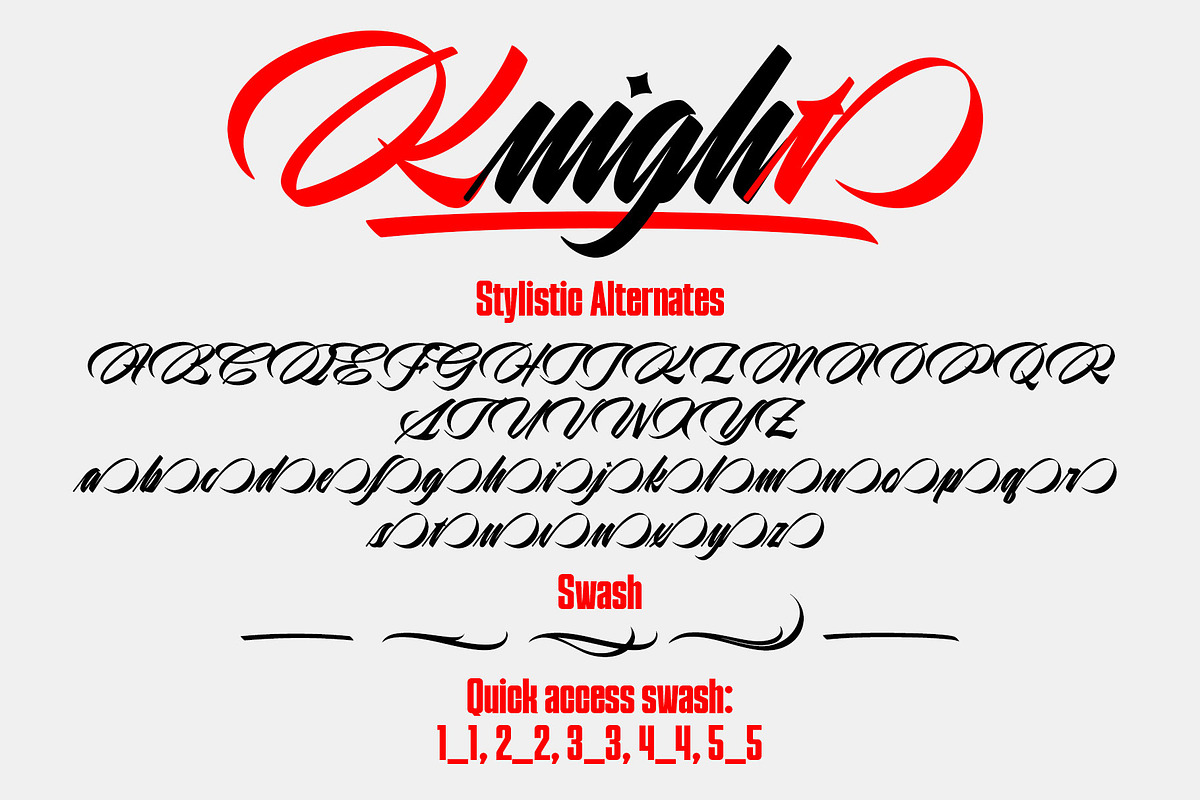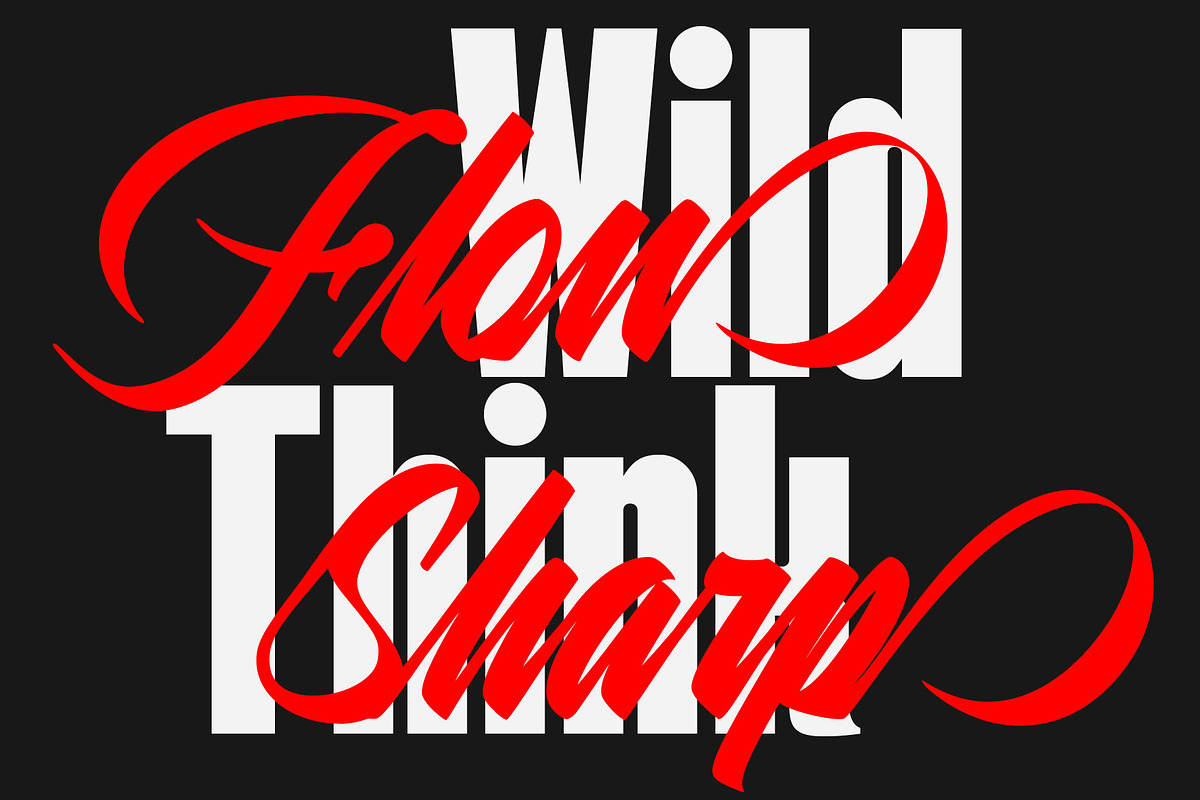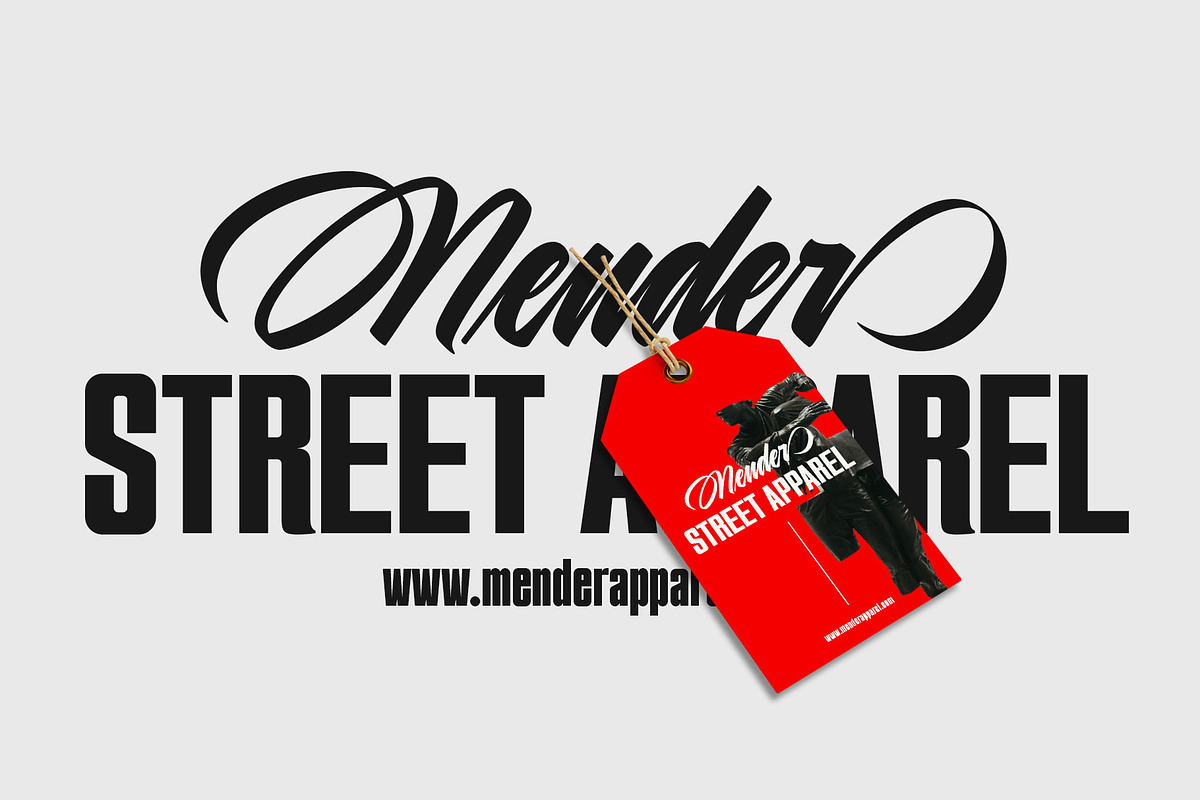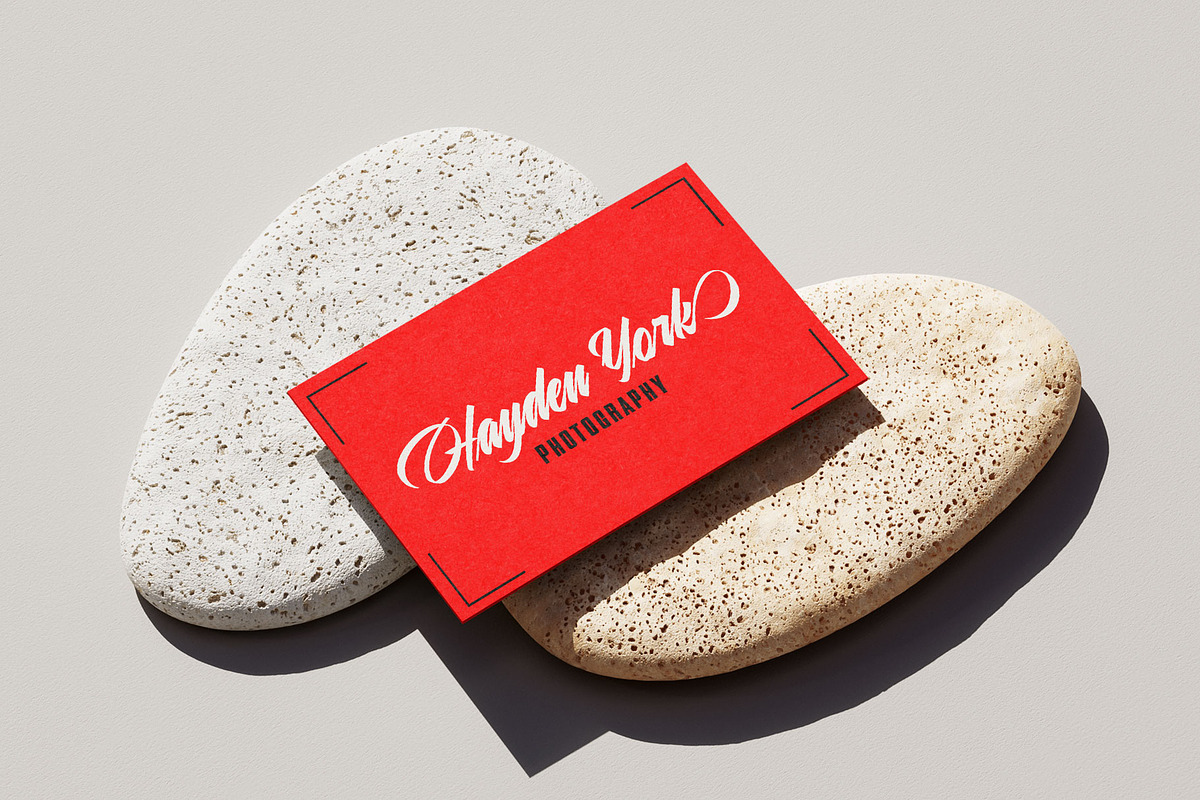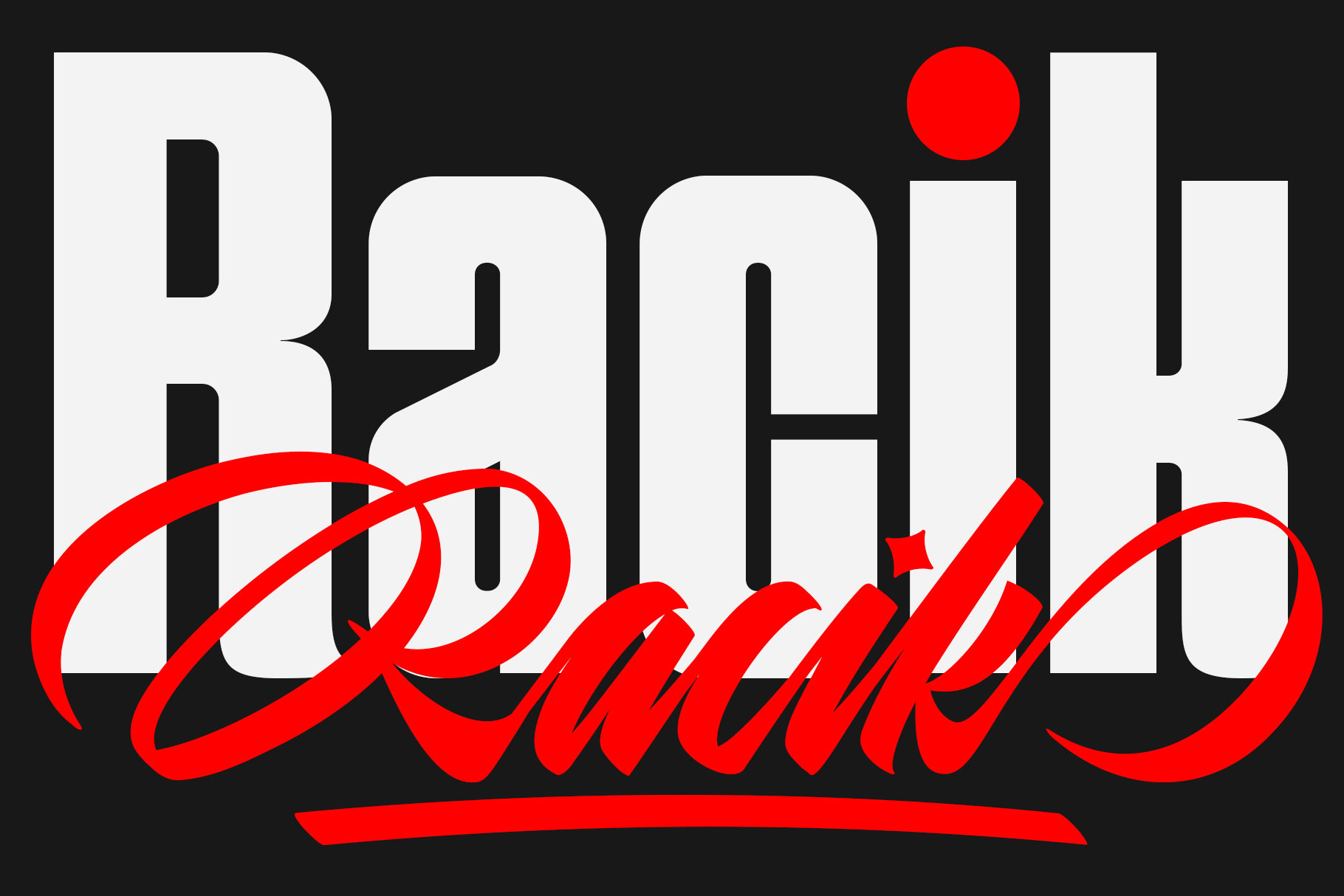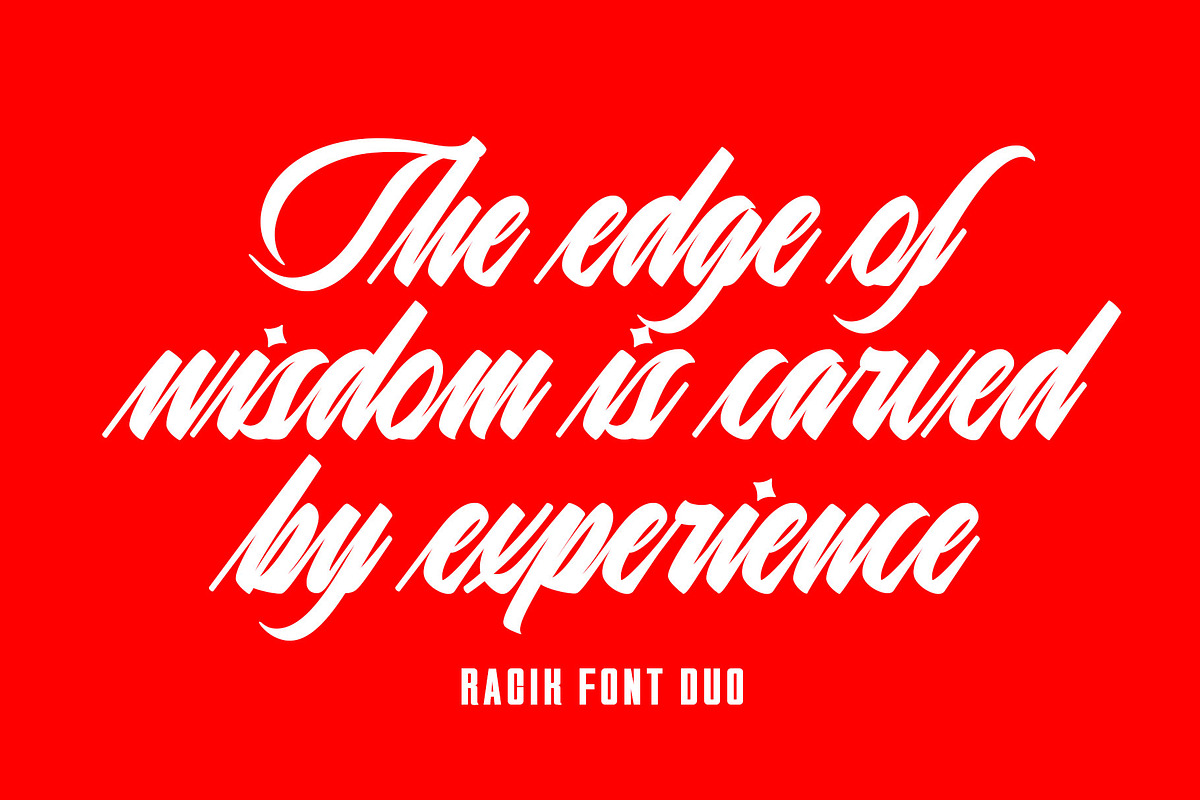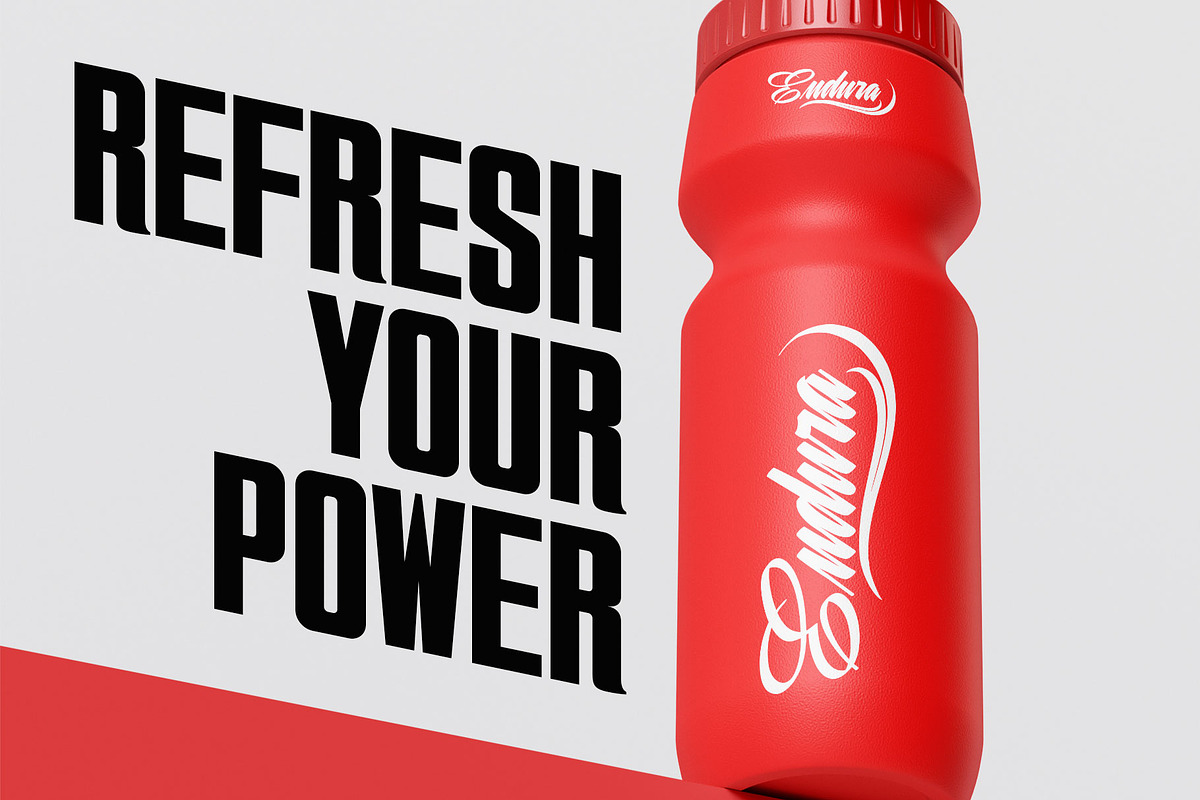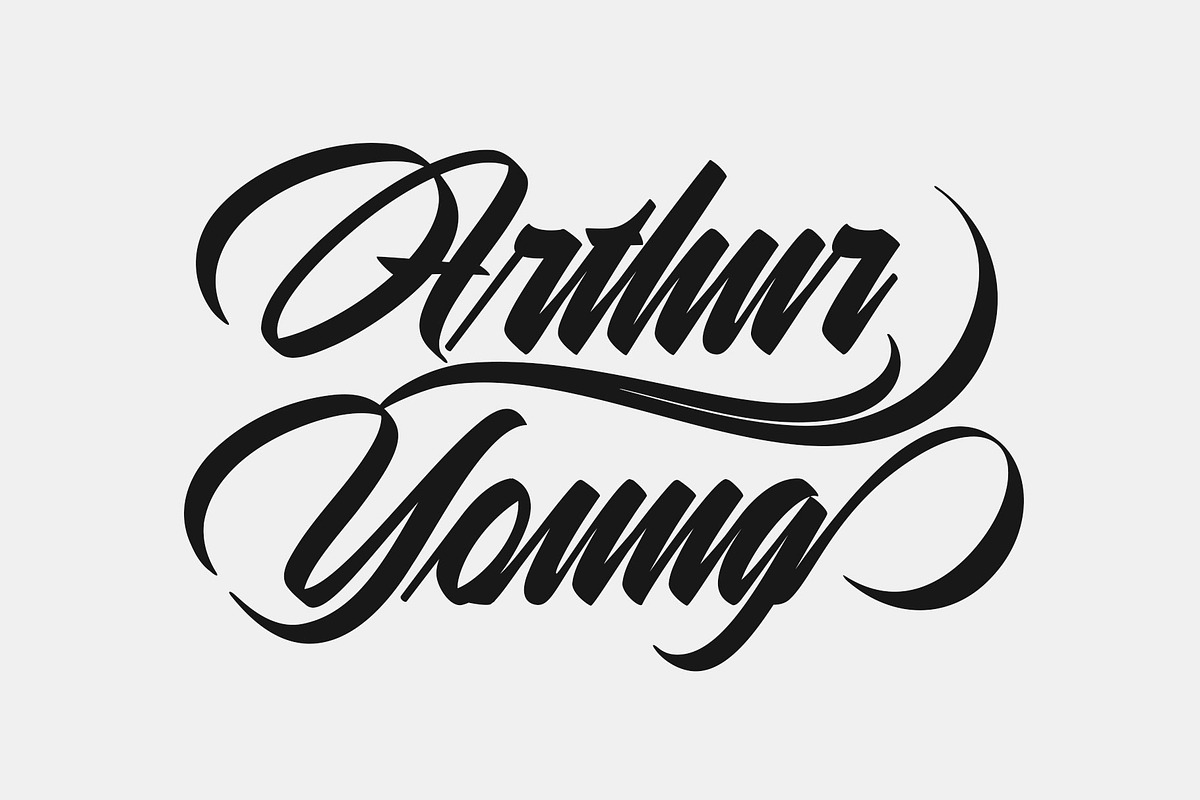
Racik | Font Duo
Racik Font Duo is a combination of a bold, strong sans serif and a dynamic, brush-style script. This duo is designed for branding needs that want to look powerful while still having a personal touch, making it suitable for logos, apparel, product labels, event posters, packaging, and various visual materials that require a bold and recognizable look. With a clear contrast between the block letters and the expressive script strokes, this font helps create designs that are solid, eye-catching, and memorable.
- Sans + Script
Quick access swash
- Add number (1–5) + underscore + number (1–5) Example: 1_1, 2_2, 3_3, 4_4, 5_5